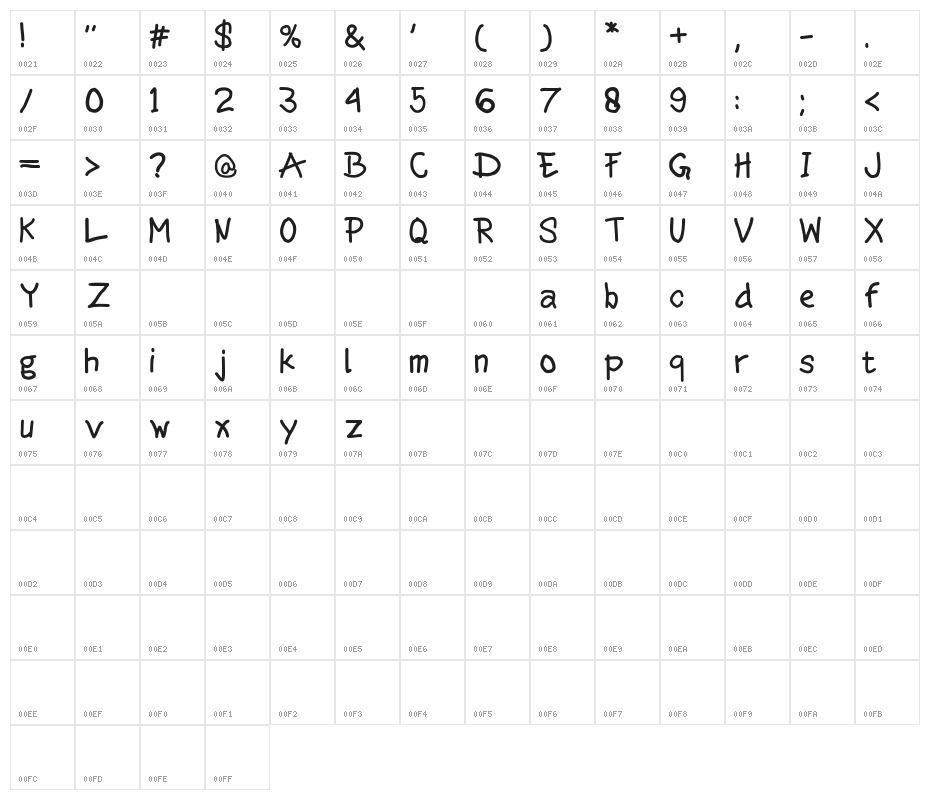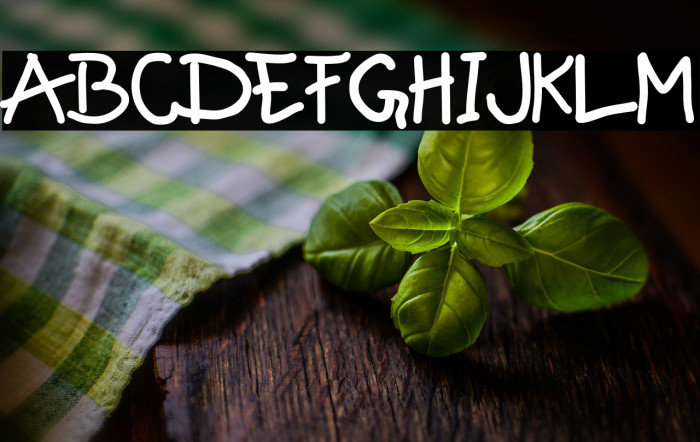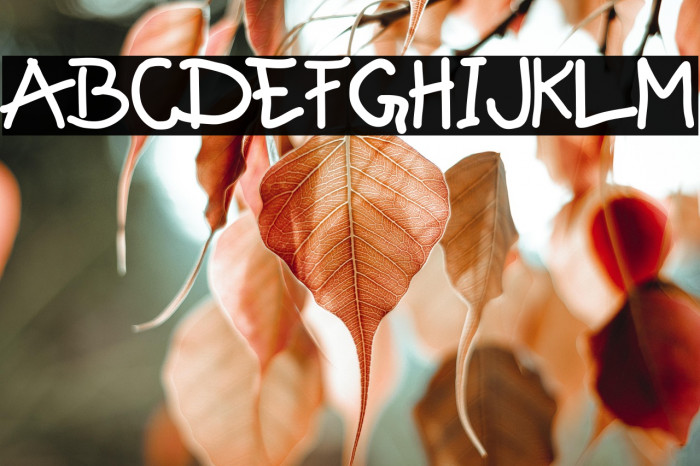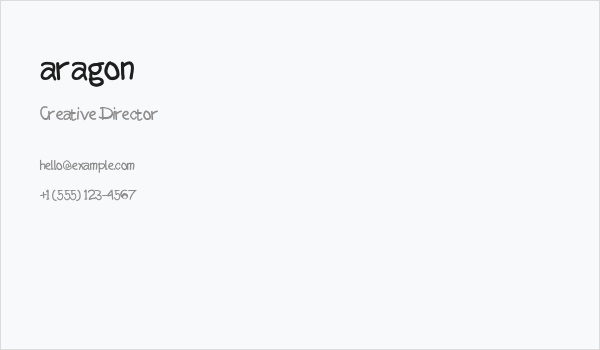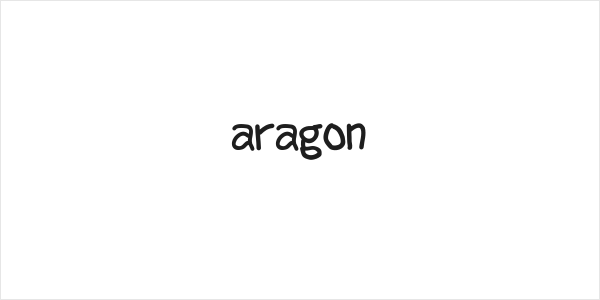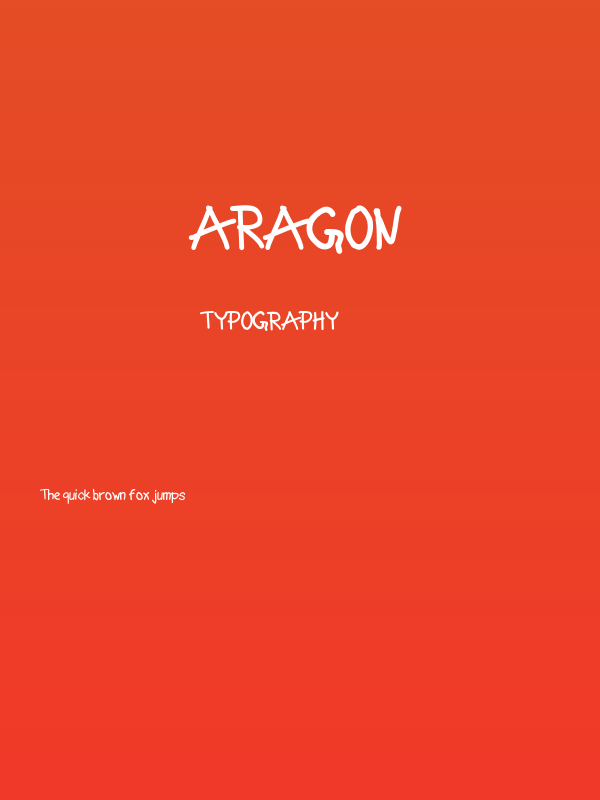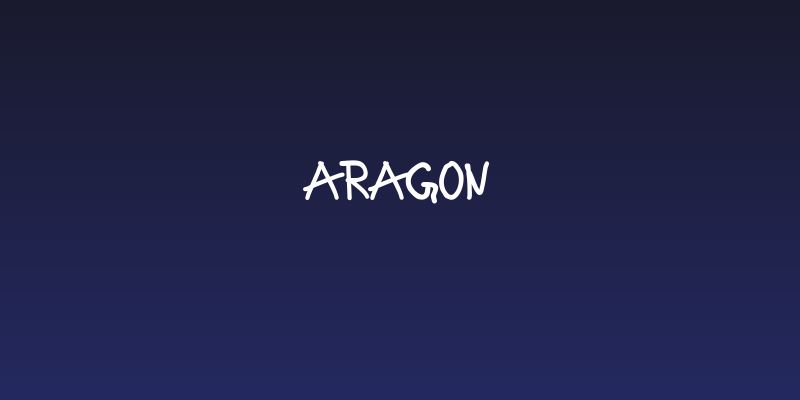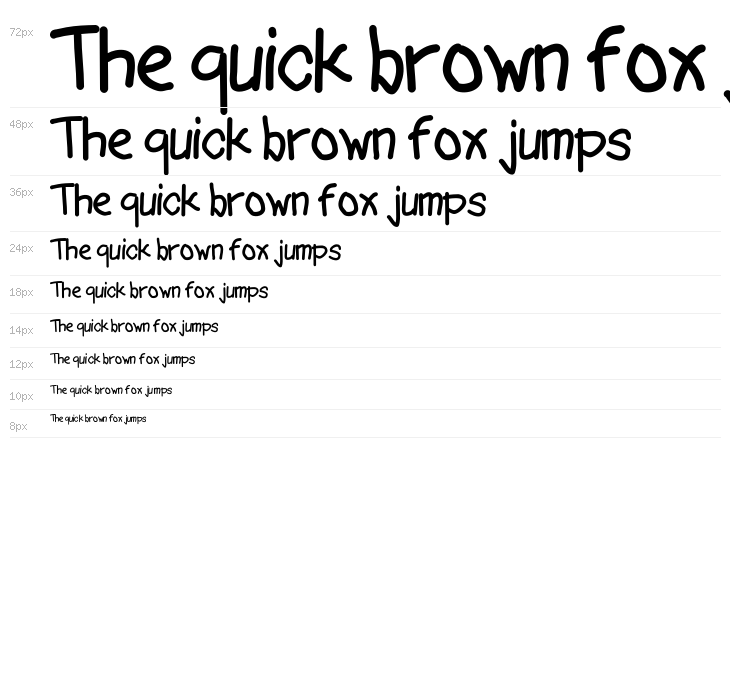
aragon Font
aragon Description
This font features a playful and informal handwritten style, characterized by its bold and slightly irregular strokes. The letters have a casual, friendly appearance, with rounded edges and a consistent flow that mimics natural handwriting. The uppercase and lowercase letters maintain a cohesive look, while the numerals and special characters complement the overall aesthetic. The font's design is approachable and versatile, making it suitable for a variety of creative projects.
| Use Case | Logos, Headlines, Informal text |
| Proposed Projects | Ideal for greeting cards, children's books, playful branding, and informal invitations. |